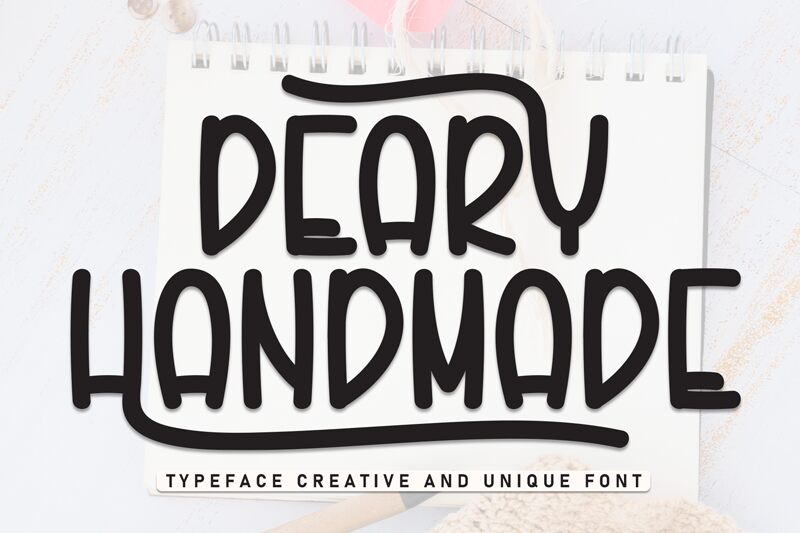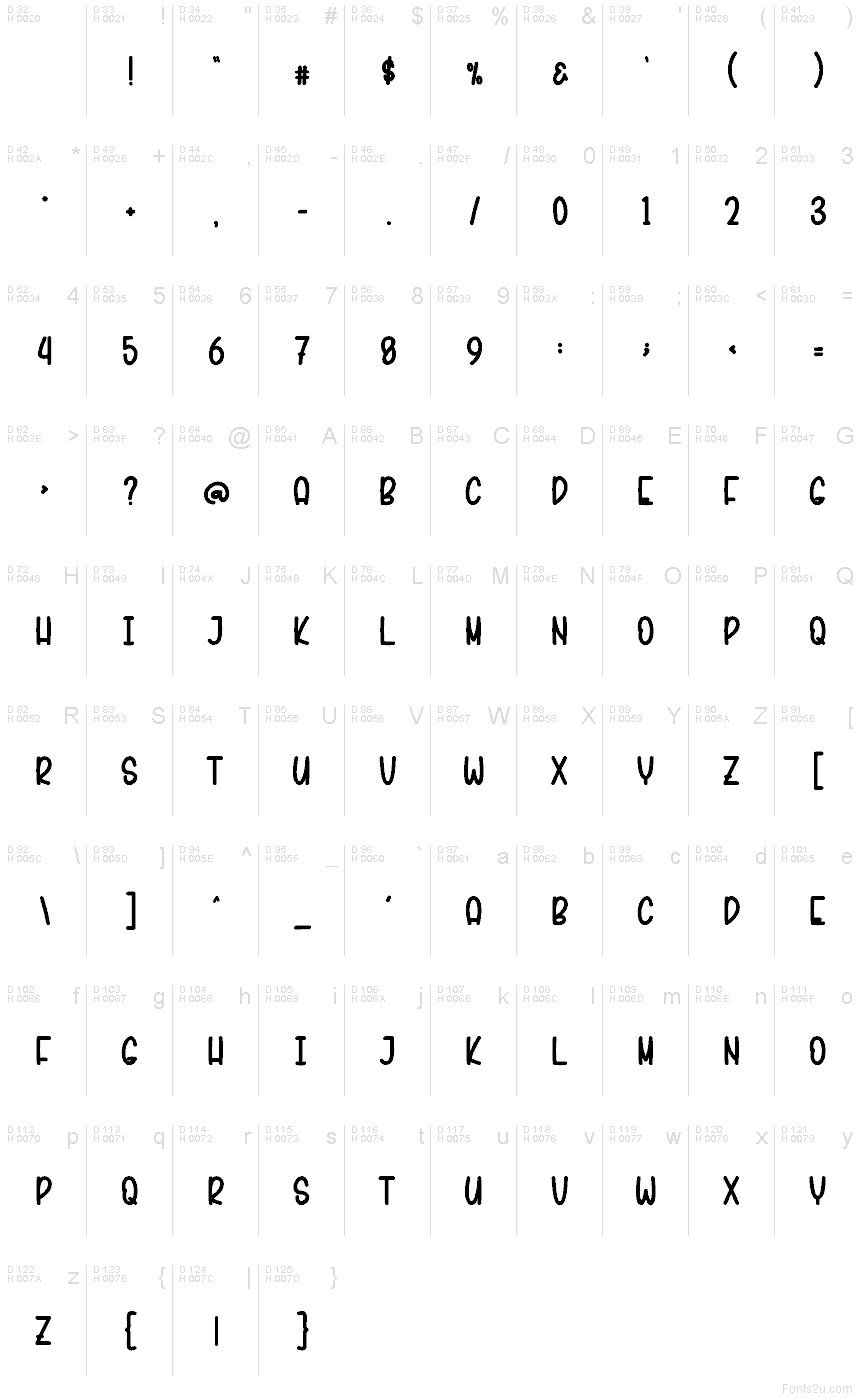
Deary Handmade
Deary Handmade font by Scratchones is a free handmade brush typeface with a cozy, doodled feel. Its rounded, slightly wobbly strokes look like they were drawn with a thick marker on smooth paper, giving each letter a friendly, homespun warmth. The tight rhythm keeps words feeling compact and energetic, while the bold weight makes text pop without looking aggressive.
Using Deary Handmade, you can bring a crafted charm to product packaging, kids’ books, quote posters, stickers, YouTube thumbnails, and branding for small shops or bakeries. This free font shines when used large, with a clean sans serif for captions or body text to keep things readable and balanced.